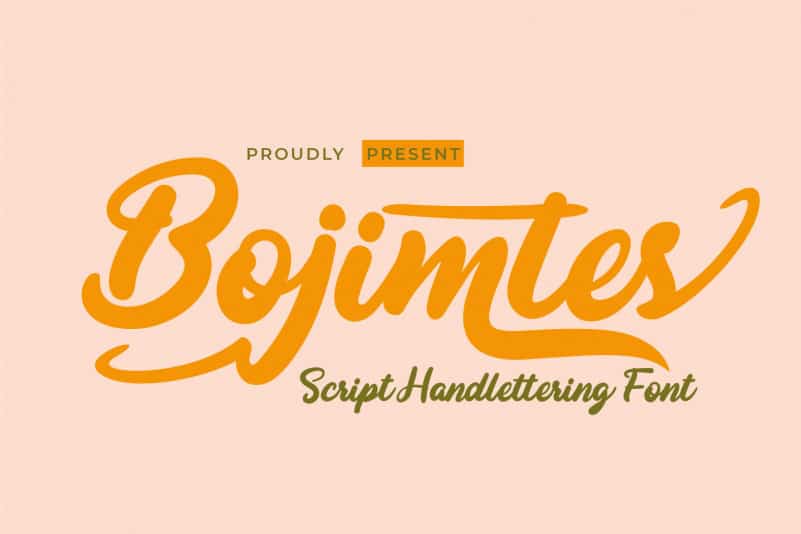
Bojimtes Script Font
Bojimtes Script Font also offers harmoniously beautiful abstract typography for a wide variety of design projects. This font is also perfect for wedding invitations, quote designs, social media business designs, advertisements, trademarks, food and beverage promotion banners, text, posters, signatures, and any design that requires handwriting.
Bojimtes Script Font is equipped with uppercase, lowercase, numbers, punctuation marks, several variations on each character including multi-language.